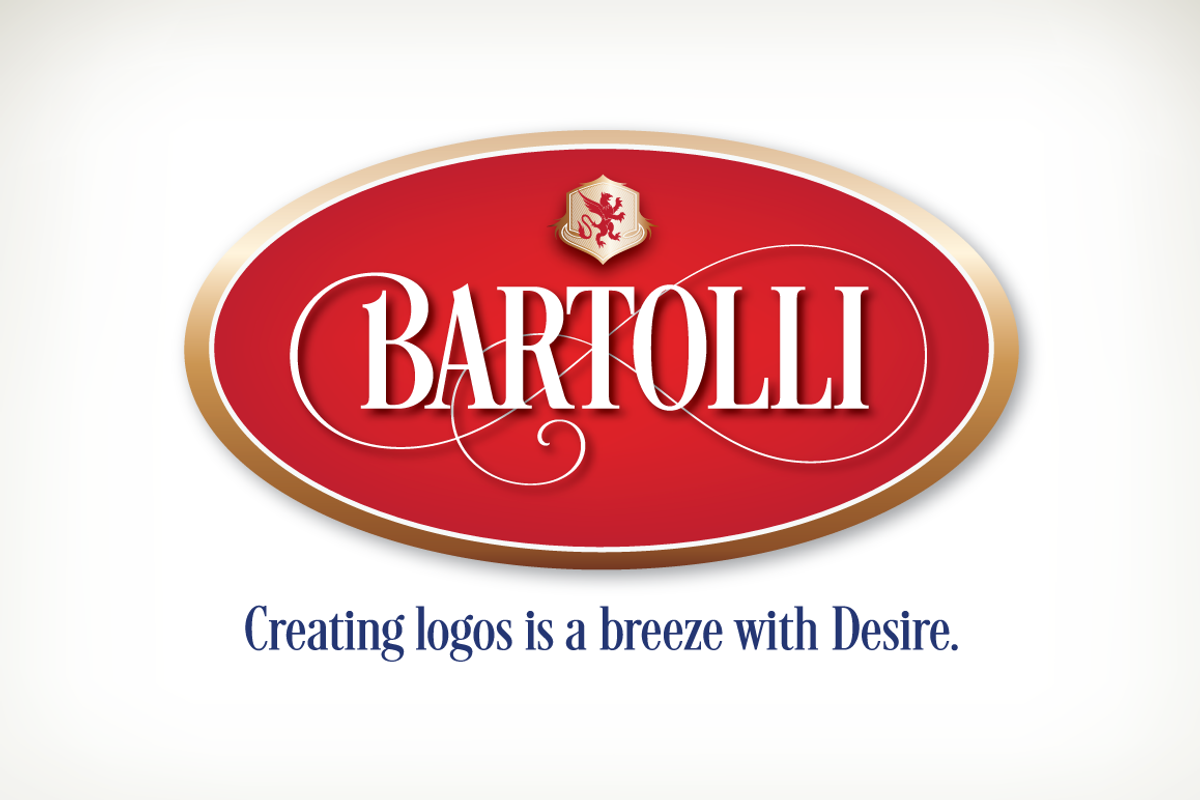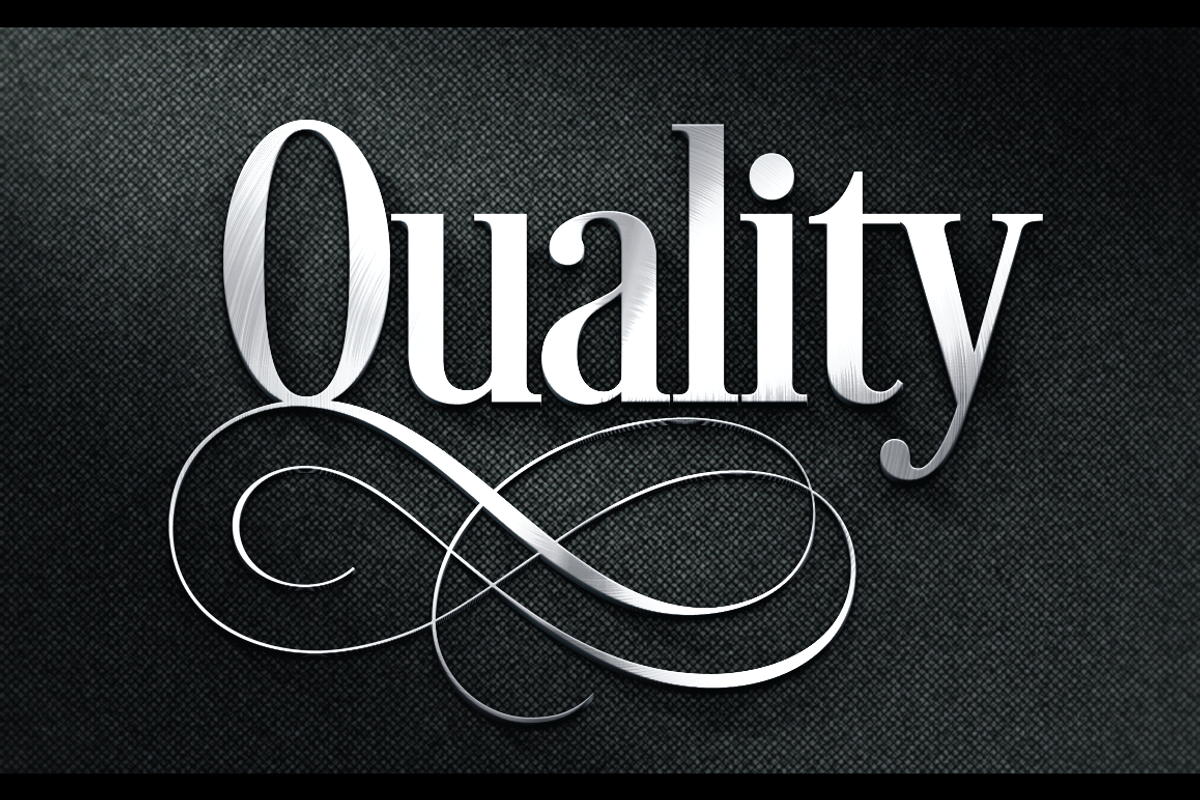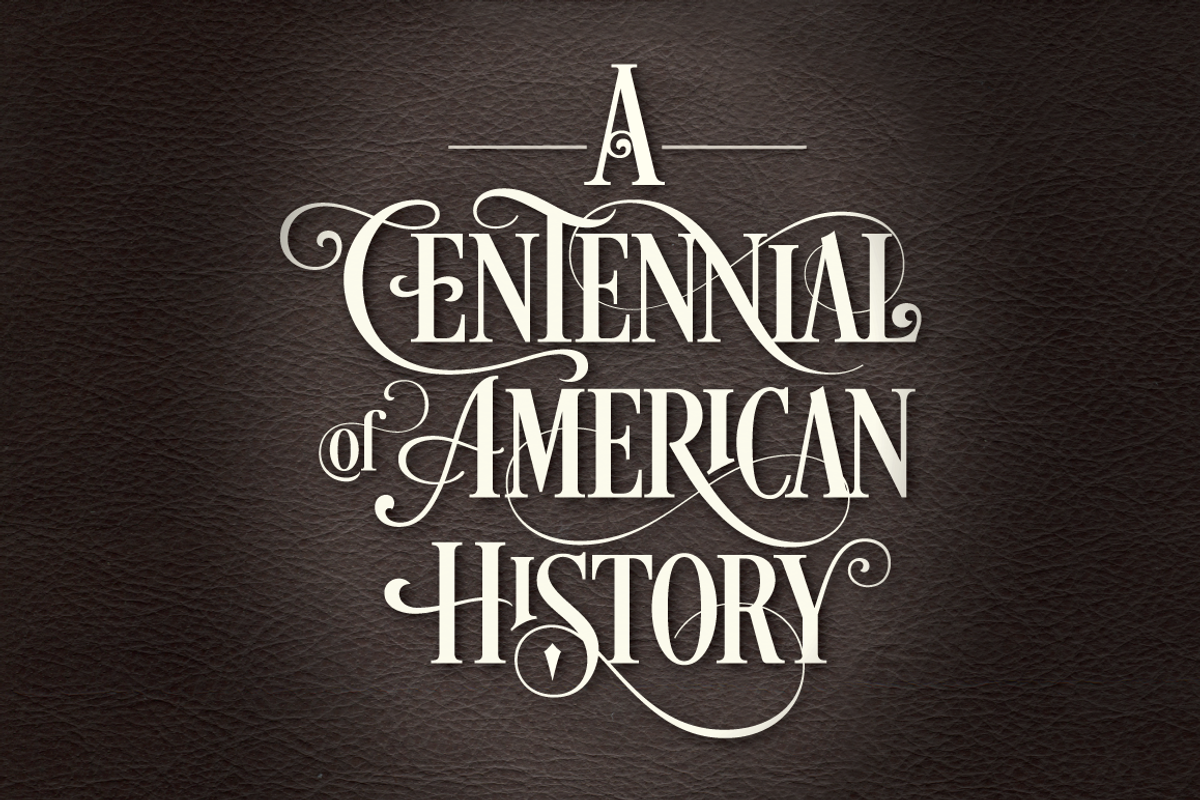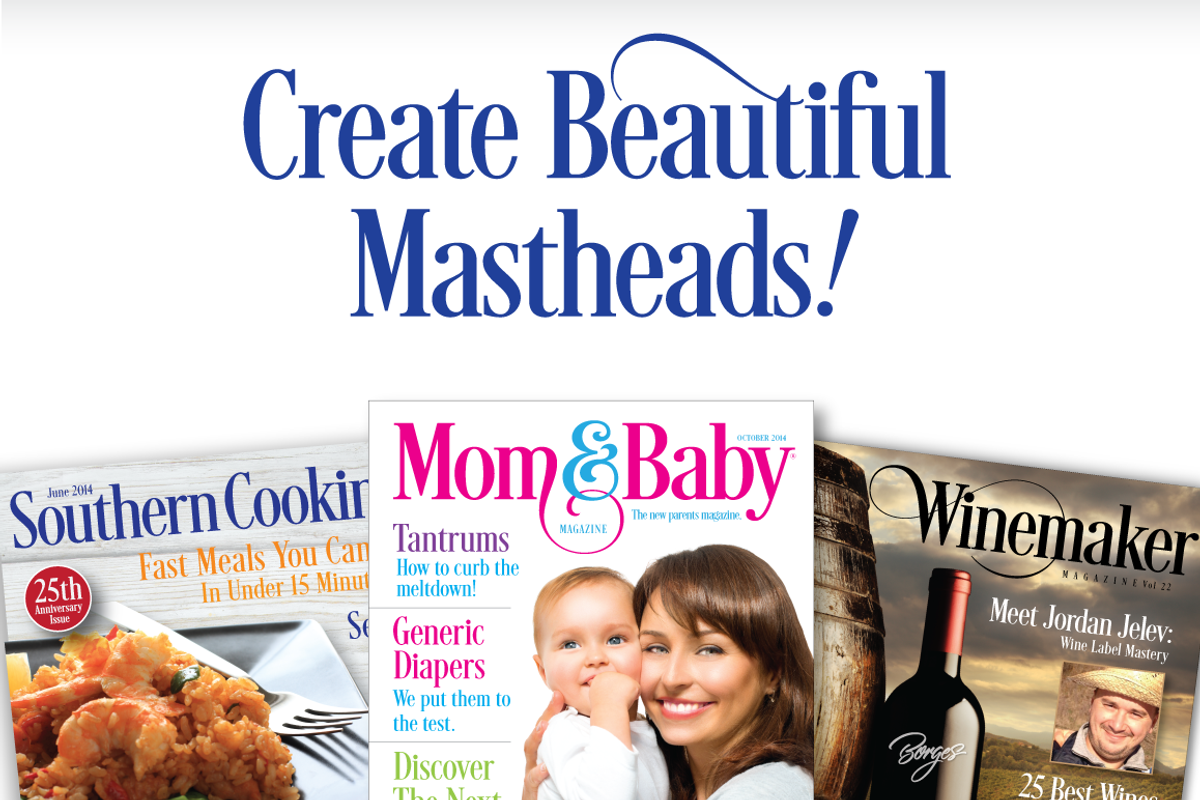
Desire Lite C
Often imitated but never duplicated. The original Desire, now available in bite size pieces.
With over five years of design and development, Desire is a pursuit of epic proportions and ready to make a statement by adding elegance and unique flair to your next design project. Desire offers an expansive set of options to create logos, headlines and titling. It is well suited for books, editorial, packaging, advertising, branding and more. From period style and Victorian to modern and elegant, Desire is strong and stately yet elegant and decorous. A wide selection of alternate upper and lowercase forms feature delicate line flourishes creating a subtle background for additional letters to rest – the result is an intertwining and beautifully flourished design. Unique ligatures go beyond function and add eye catching flair and style. Desire is truly a designer’s dream come true!